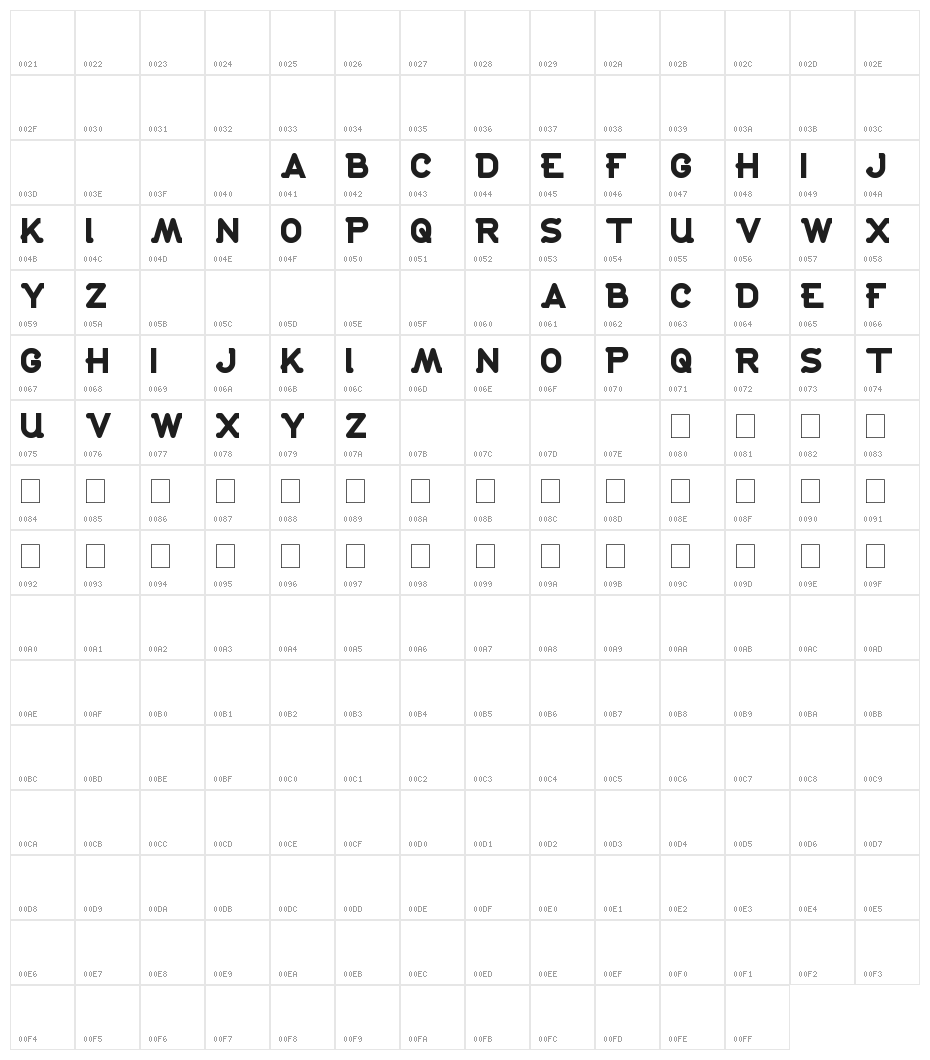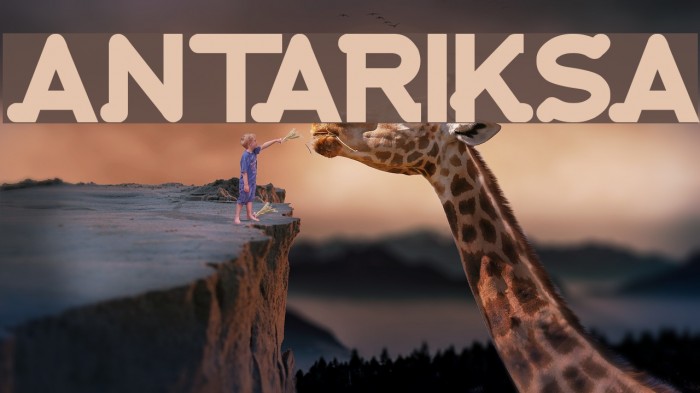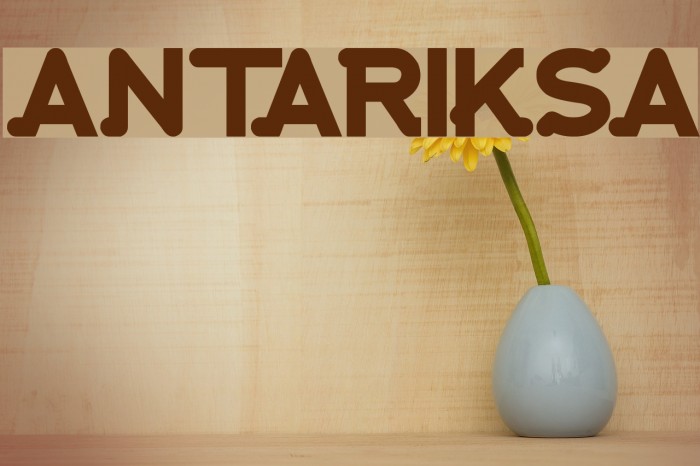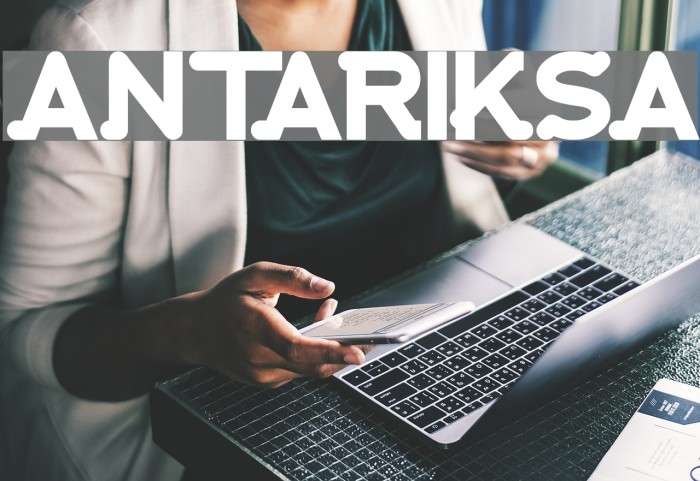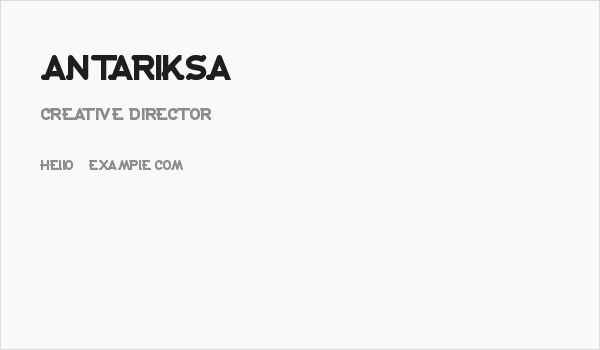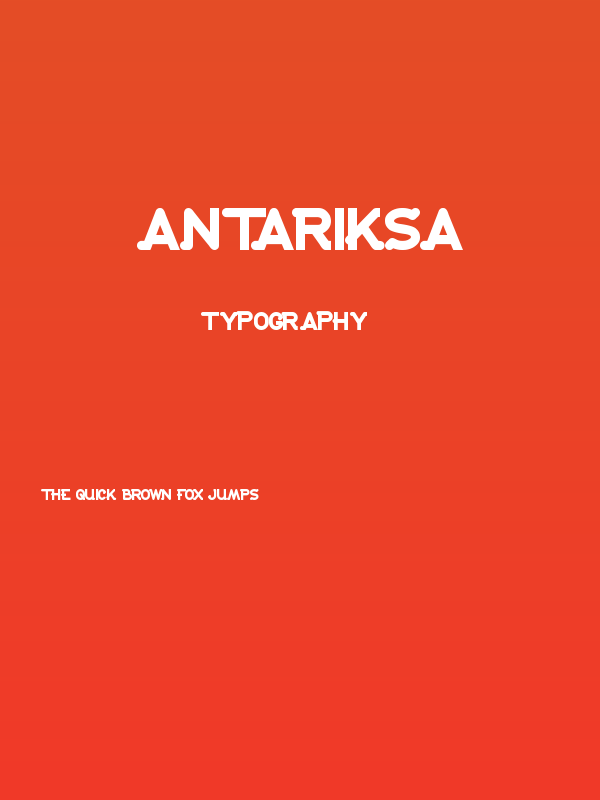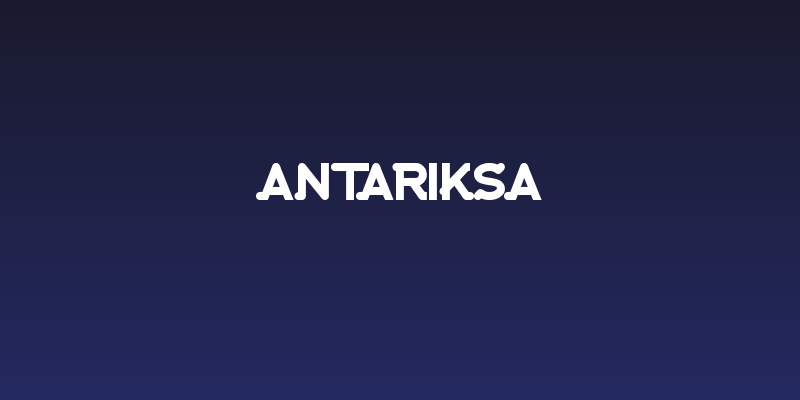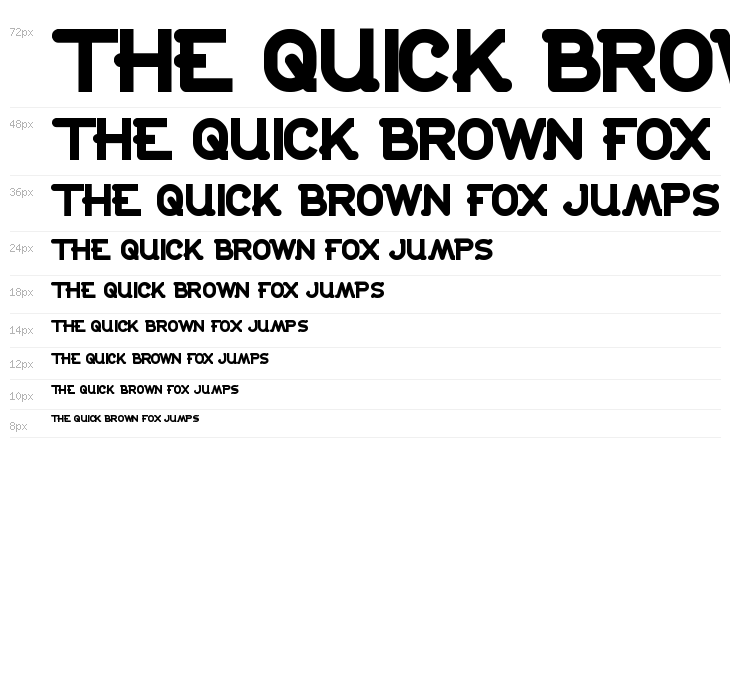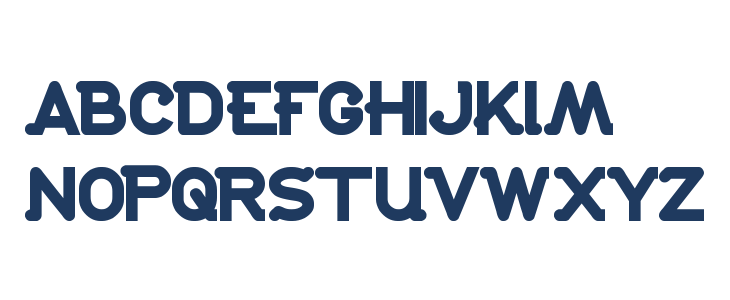
antariksa Font
antariksa Description
This font features bold, rounded characters with a distinct geometric style. The uppercase letters are uniform in height, creating a cohesive and balanced appearance. The rounded edges and thick strokes give it a friendly and approachable look, while maintaining a modern and professional feel. The font's design is consistent across all characters, ensuring readability and visual appeal. Its boldness makes it suitable for attention-grabbing headlines or logos. The spacing between characters is tight, which enhances its compact and solid appearance. Overall, this font combines modern aesthetics with a touch of playfulness, making it versatile for various design projects.